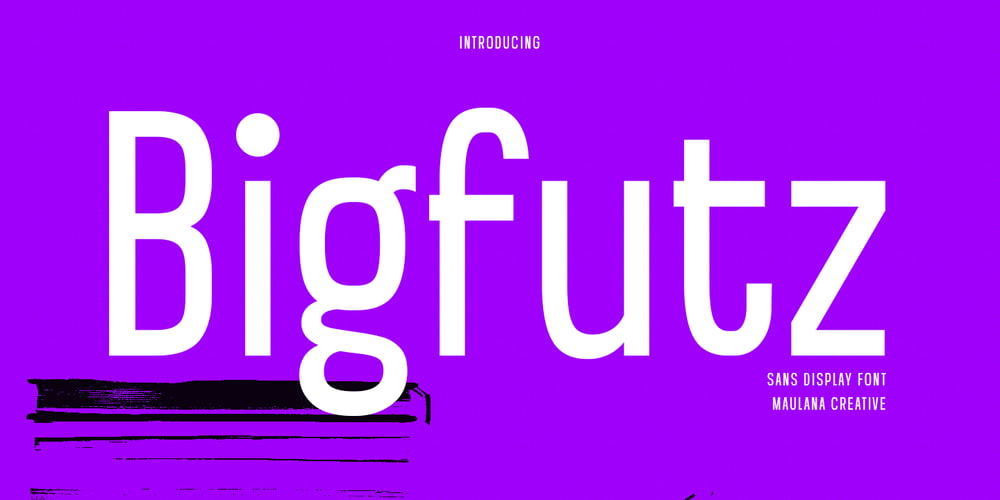
MC Bigfutz Font Family was designed by Gilang Maulana and published by Maulana Creative. MC Bigfutz contains 1 styles and family package options. Bigfutz is a modern Decorative sans serif condensed font. Medium stroke, fun character with a bit of ligatures and alternates. To give you an extra creative work. Bigfutz font support multilingual more than 100+ language. This font is good for logo design, Social media, Movie Titles, Books Titles, a short text even a long text letter and good for your secondary text font with script or serif. Make a stunning work with Bigfutz font. Cheers, Maulana Creative